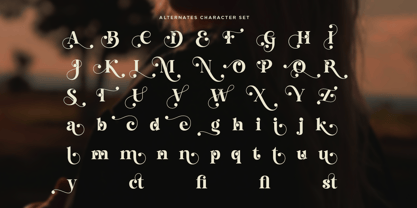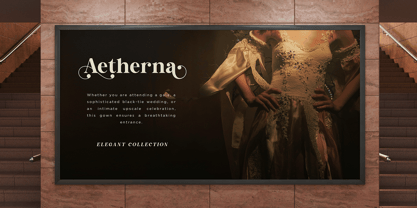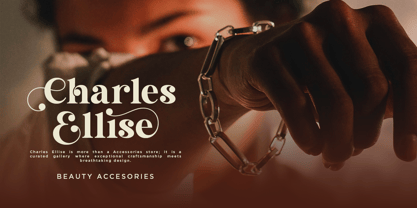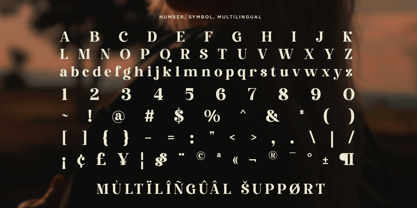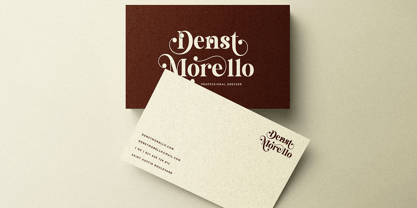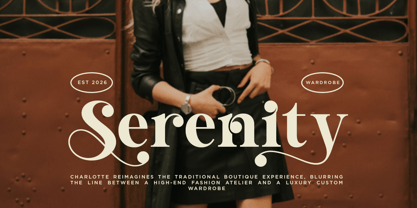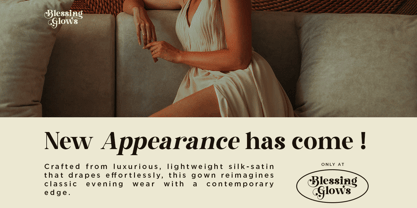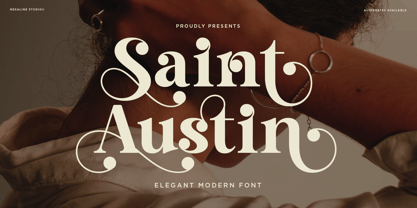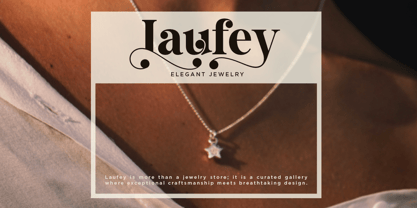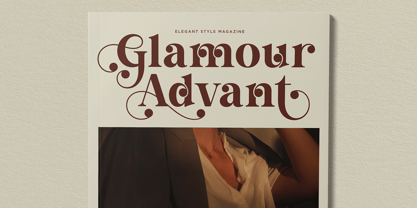
Saint Austin
The Saint Austin Font Family was designed by Anggi Surya and published by Nexaline Type. Saint Austin contains 2 styles and family package options. More about this family
Saint Austin is a captivating, elegant modern font proudly presented by Nexaline Studio. Designed with a seamless blend of sophisticated serifs and flowing, artistic swashes, this typeface exudes luxury, high fashion, and grace. The stunning alternate characters and unique terminal dots give your typography a bespoke, high-end look that stands out effortlessly.
Perfect for:
• Luxury Branding & Logo Design
• Wedding Invitations & Stationery
• High-End Fashion Magazines & Editorial Layouts
• Cosmetics & Beauty Product Packaging
• Sophisticated Advertising & Quotes
What’s Inside:
• Gorgeous Alternates & Swashes Included (Alternates Available)
• Standard Character Set (A-Z, 0-9, Punctuation)
• Smooth curves and clean contrast shapes